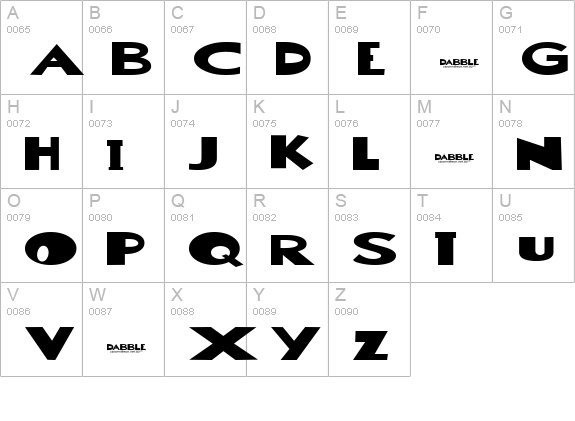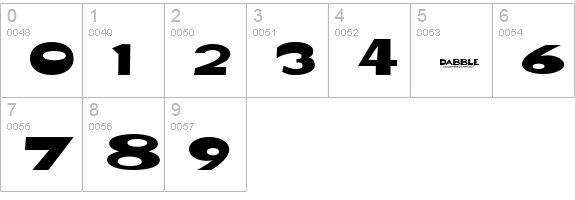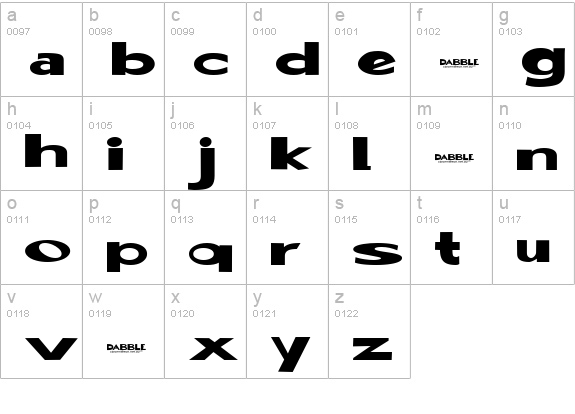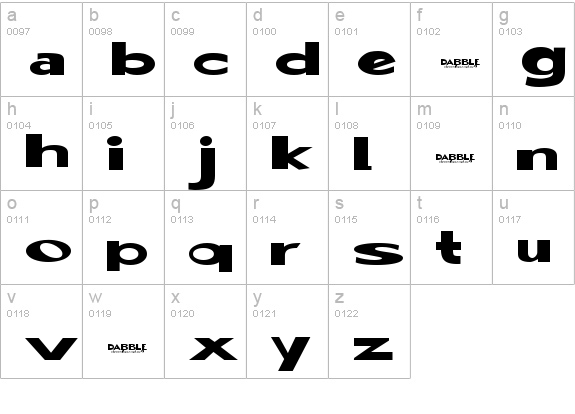
Dabble(eval) Font Details
Introducing Dabble(eval), a stunning and versatile font that is sure to elevate your creative projects to new heights. With its elegant yet playful design, Dabble(eval) is perfect for a wide range of applications, from branding and logo design to invitations and social media graphics. This font effortlessly combines the classic and the contemporary, featuring beautifully balanced letterforms that exude both sophistication and whimsy. Its clean lines and graceful curves make it a true standout, while its subtle details add a touch of uniqueness to any composition. But what sets Dabble(eval) apart is not just its aesthetic appeal – it is also free! That's right, this extraordinary font can be freely downloaded at FontsMarket.com, giving you the opportunity to access a premium quality typeface without breaking the bank. Now you can enjoy the luxury of high-end design without the hefty price tag. Whether you're a professional designer or an enthusiastic hobbyist, Dabble(eval) is here to inspire and empower your creativity. Its extensive character set ensures that you have all the tools you need to bring your vision to life, with support for multiple languages and a wide range of punctuation and symbols. So, why wait? Go ahead and explore the endless possibilities that Dabble(eval) has to offer. Download this remarkable font today at FontsMarket.com and let your imagination run wild. Unleash your creativity and make a statement with Dabble(eval), the font that combines beauty, versatility, and affordability in one spectacular package.